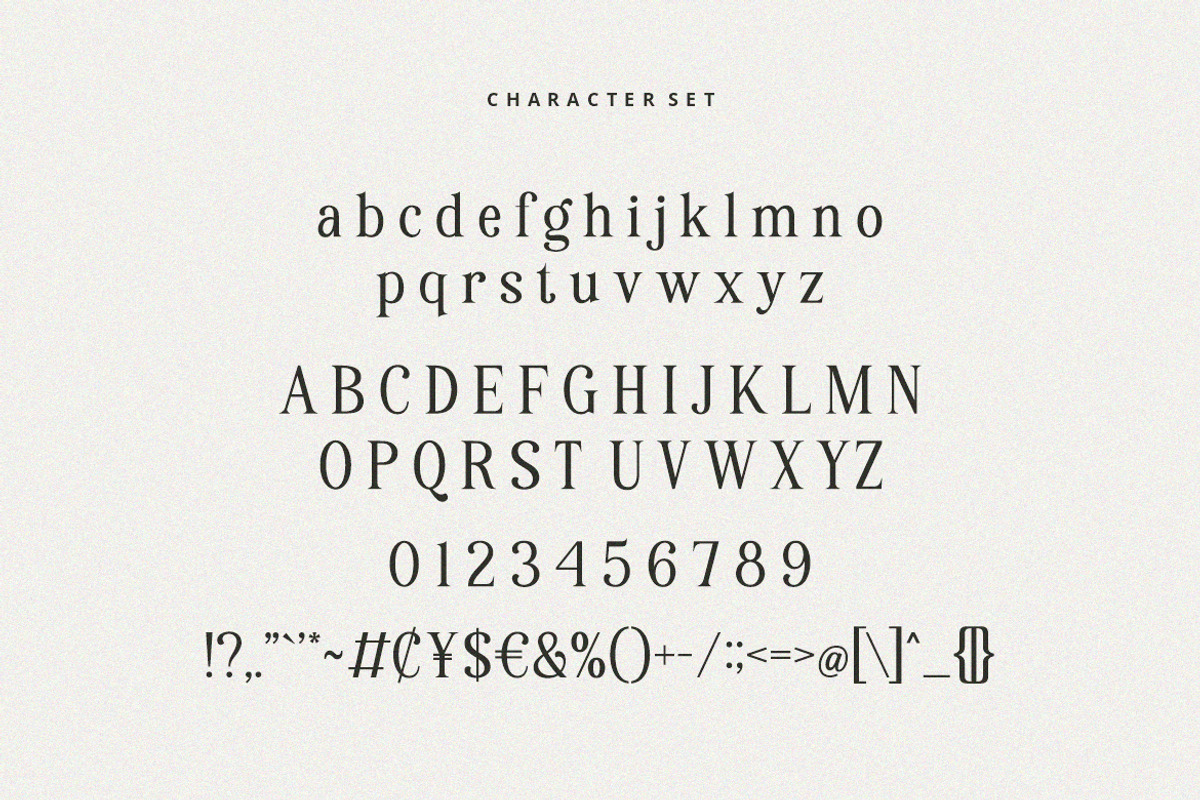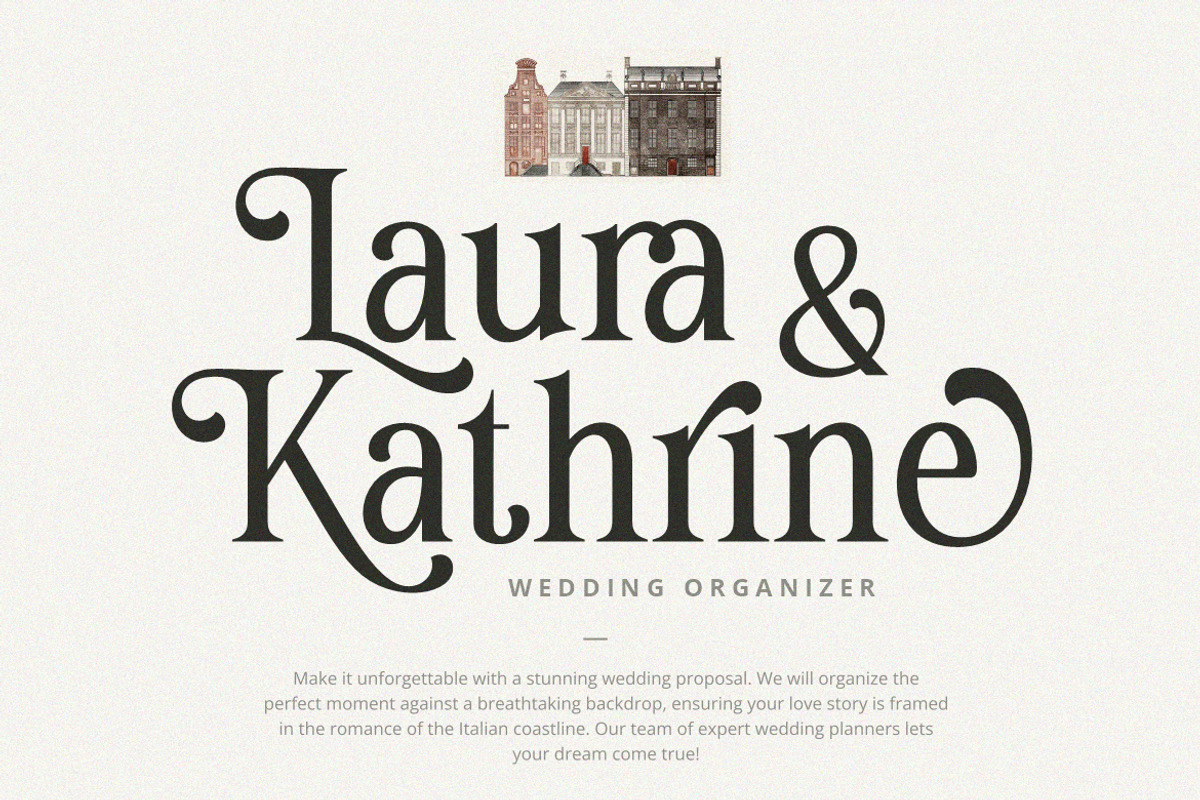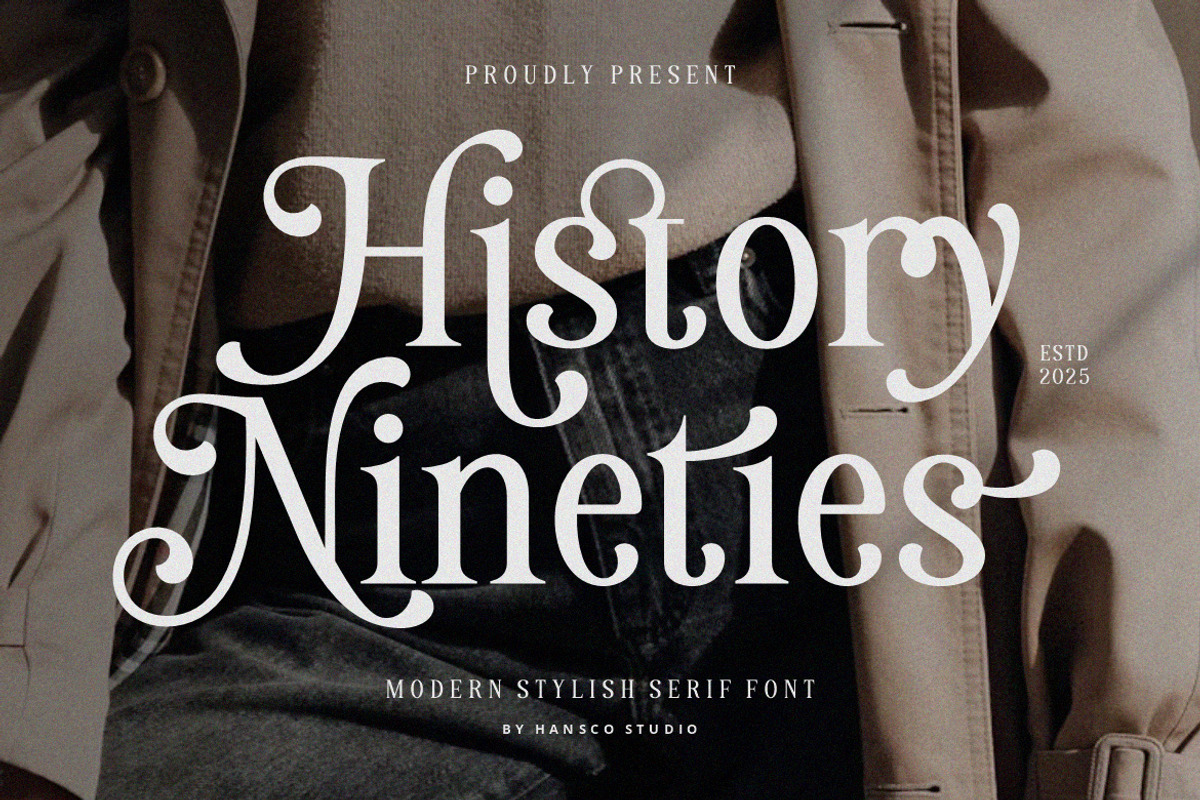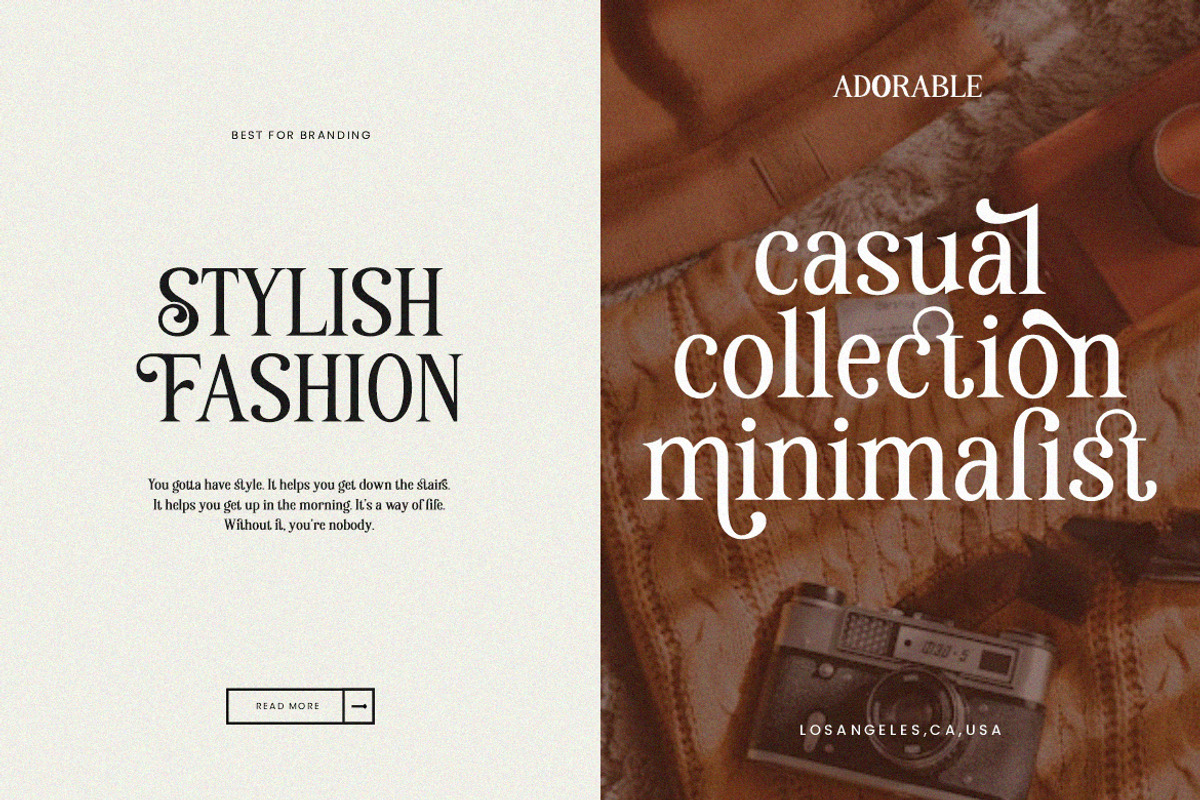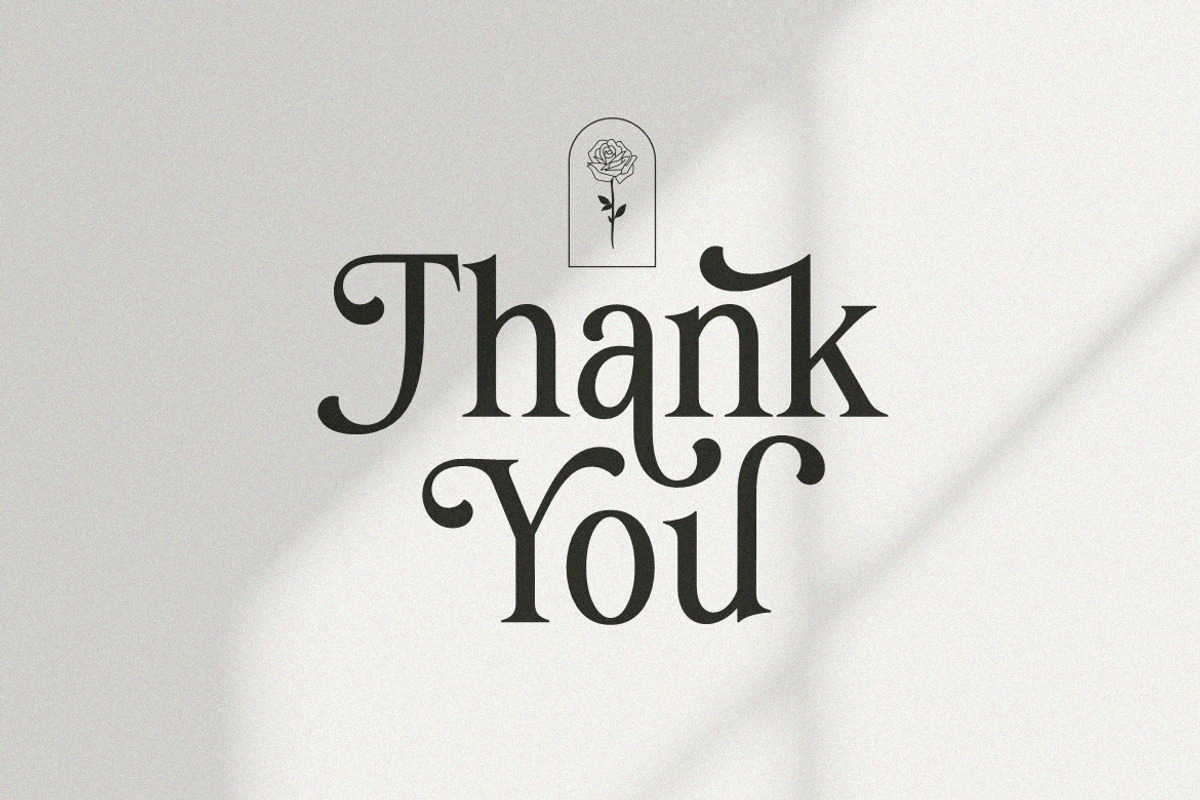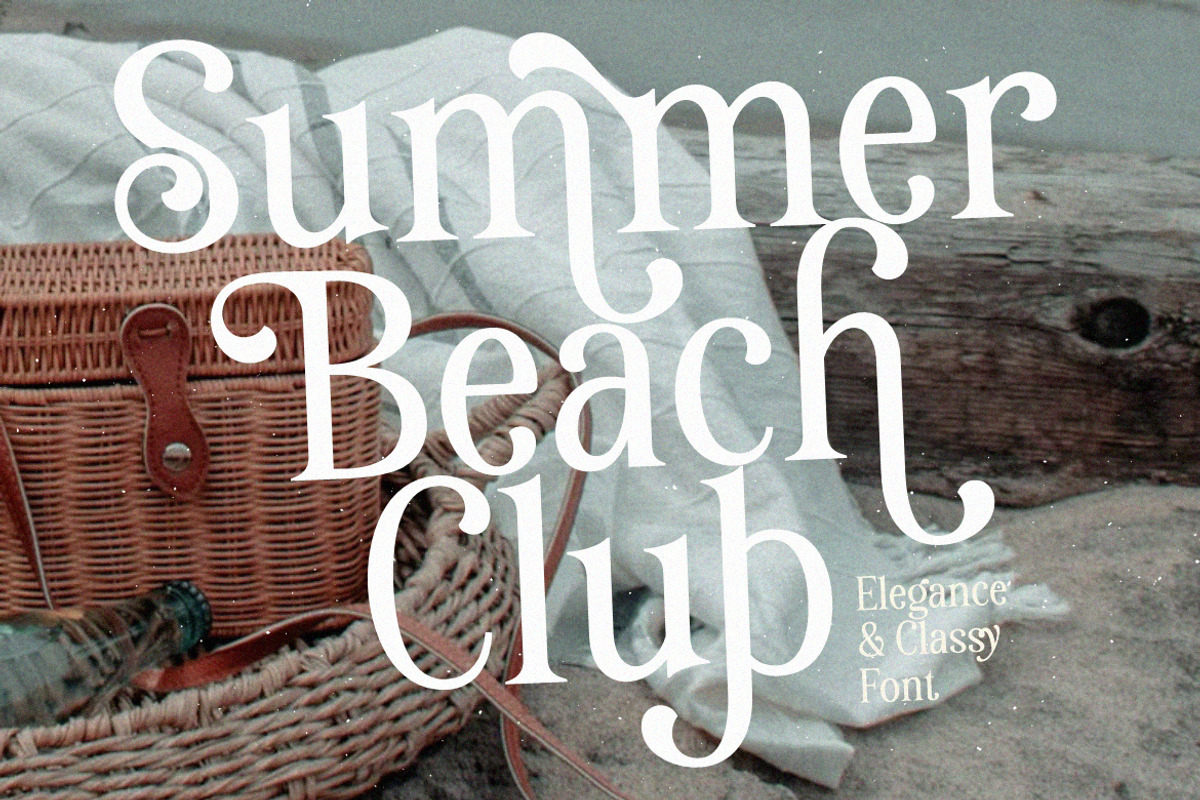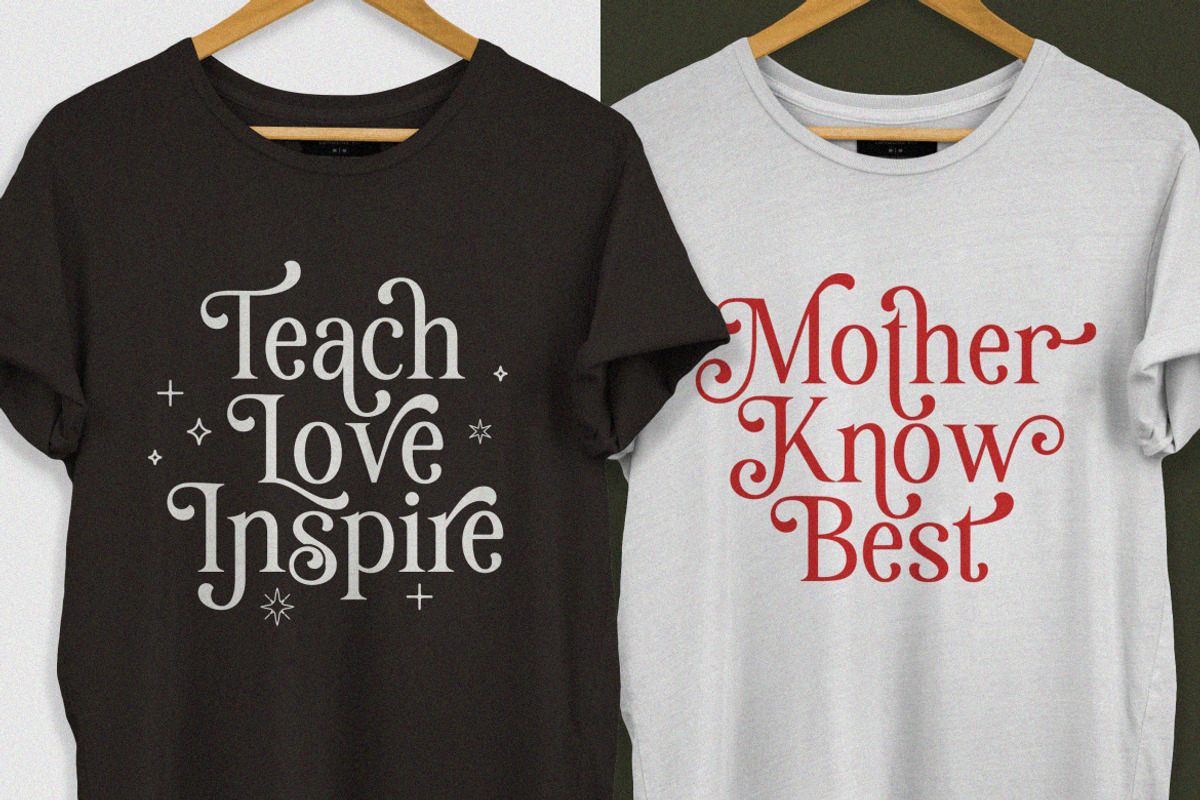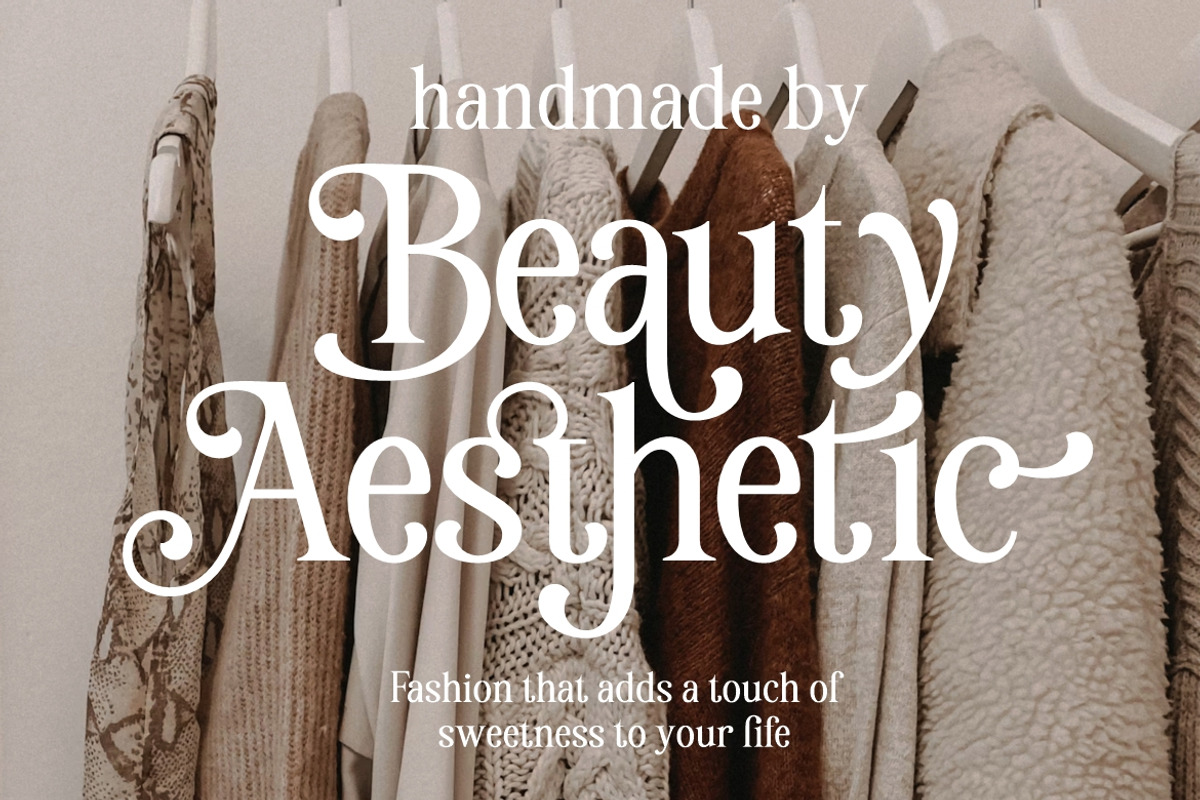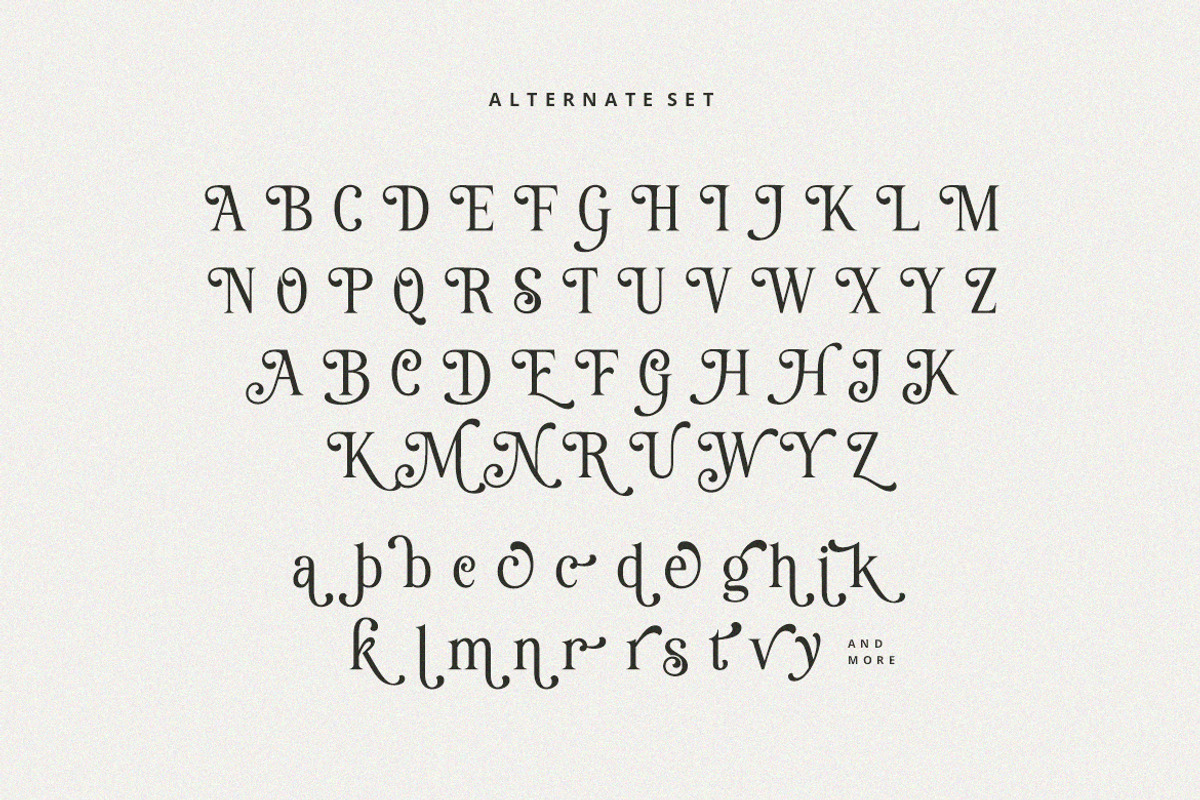
History Nineties Font
History Nineties Font is a beautiful and modern display serif font. It features an incredibly feminine and retro style, while still keeping a elegant feel. History Nineties is the perfect font for making designs project especially for those of you who want something unique with a smooth swash style in every characters on your logo or brand. It’s great for branding, logo designs, logotype, craft, posters, packaging and much more. You will also get several alternative characters on lowercase, uppercase and ligature in them, so that it will provide many great choices in your design. The alternate characters are in the font but hidden, you can access them using Font Book on Mac or Character Map on Windows. These apps are already on your computer so you don’t need to install them. This font comes with a full uppercase, lowercase, numbers, punctuation and multilingual support.
- Number & Punctuation
- Ligature & Alternate character